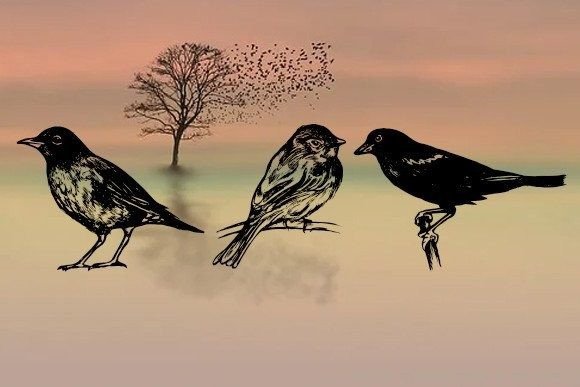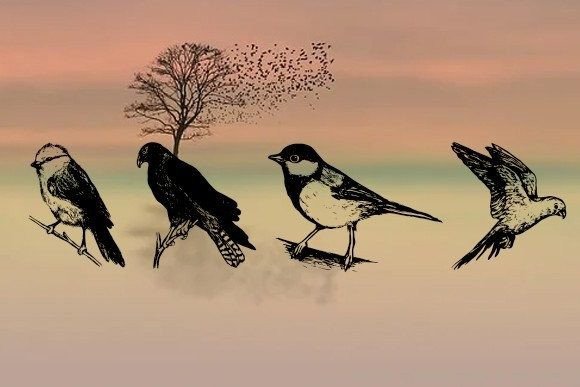
Introduction to Madarak Font
Imagine you’re working on a creative project, and you need the perfect finishing touch – a visual element that adds a dash of personality and whimsy. For designers, this moment can make all the difference between a good design and a great one. And that’s where the Madarak Font comes in – a high-quality dingbats font that’s sure to elevate your work.
With its unique and quirky characters, Madarak Font is a design resource that’s hard to resist. Whether you’re creating a poster, flyer, or print, this font is sure to add a touch of magic to your project. Plus, with a transparent background, you can easily layer it over your design without any fuss. And the best part? It’s available for free download, making it a valuable asset for designers of all levels.
Key Features of Madarak Font
- Comes with a transparent background, allowing for easy customization
- Unique, modern font style suitable for various design applications
- Perfect for use in digital design projects, print materials, and web development
Honest Review: Madarak Font
I recently had the chance to work with the Madarak Font, and I must say it’s been a game-changer for my creative project. The level of detail and sophistication in this design resource is truly impressive.
- ✨ High-quality glyphs and characters that add a touch of elegance to any design
One of the standout features of the Madarak Font is its transparent background, which allows for easy layering and composition in design projects. This makes it an excellent choice for designers who value flexibility and creative freedom.
As a free download, I was pleasantly surprised by the level of quality and attention to detail in the Madarak Font. It’s clear that the designers behind this font have put a lot of thought and effort into creating a truly exceptional design resource.
My only criticism is that the font selection is limited, which may not be ideal for designers who require a wide range of font styles for their projects.
Overall, I’m thoroughly impressed with the Madarak Font and would highly recommend it to any designer looking for a high-quality, versatile font for their next creative project.
Tips for Getting the Most Out of Madarak Font
Use Madarak Font as a design resource for creating unique and eye-catching graphics. Experiment with different font sizes, colors, and styles to add depth and visual interest to your designs. Consider using Madarak Font as a headline font to grab attention and draw the viewer’s eye to the most important information.
Madarak Font is perfect for creating graphics for social media, marketing materials, and branding. It’s also great for designing posters, flyers, and brochures. With its high-quality design and transparent background, Madarak Font is a versatile design resource that can be used in a variety of creative projects.